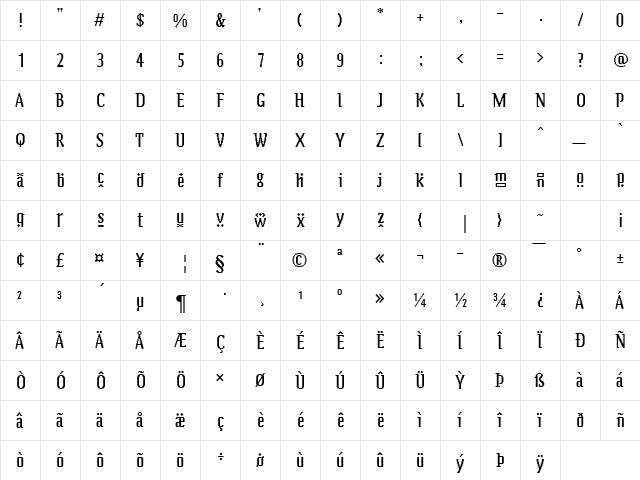
Zeitgeist MT Crazy Paving Regular
Design Context for Zeitgeist MT Crazy Paving Typeface
Zeitgeist MT Crazy Paving offers clean, dependable letterforms without strong stylistic allegiance, making it a practical choice for designers who need flexibility.
Pro Tip: Use Zeitgeist MT Crazy Paving in both headline and body roles to test its range before committing to a single application.